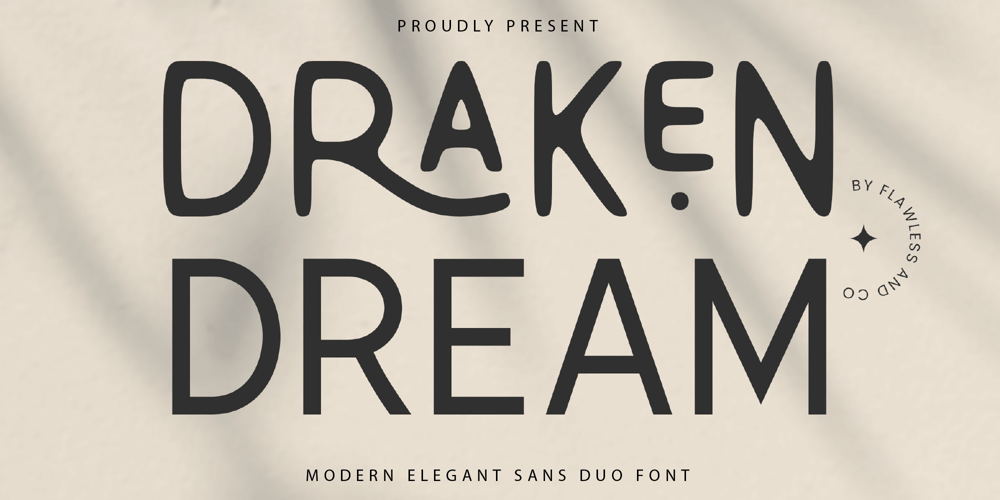
Draken Dream Font Family was designed by Achmad Yani and published by Flawlessandco. Draken Dream contains 2 styles and family package options. Introducing “Draken Dream” – A Modern Elegant Sans Duo Font. Experience the epitome of modern elegance with “Draken Dream,” a striking sans-serif font duo that seamlessly marries sophistication with contemporary design. There’s some connected letters and some alternates that suitable for any graphic designs such as branding materials, t-shirt, print, business cards, logo, poster, t-shirt, photography, quotes .etcThis font support for some multilingual. Also contains uppercase A-Z and lowercase a-z, alternate character, numbers 0-9, and some punctuation.If you need help, just write me! Thanks so much for checking out my shop